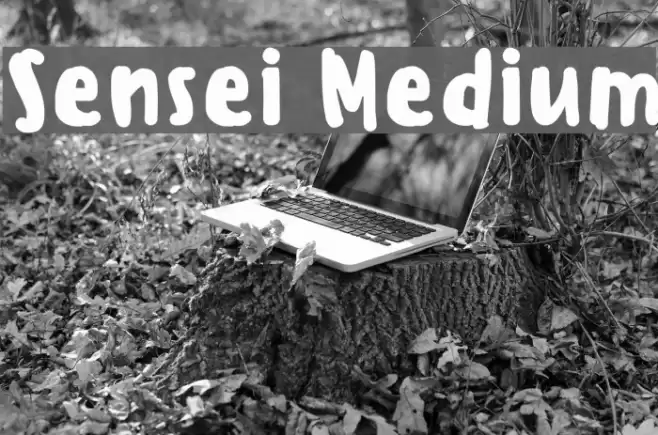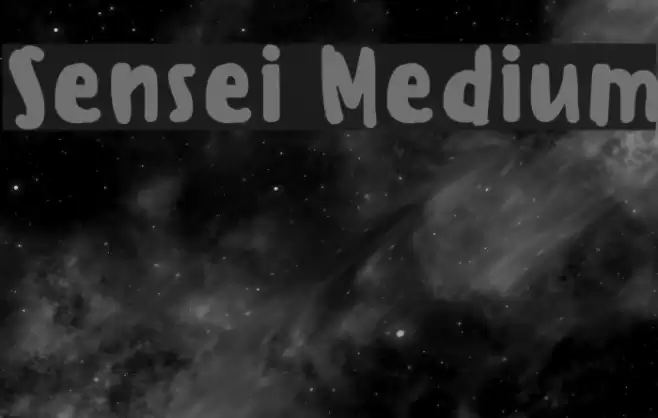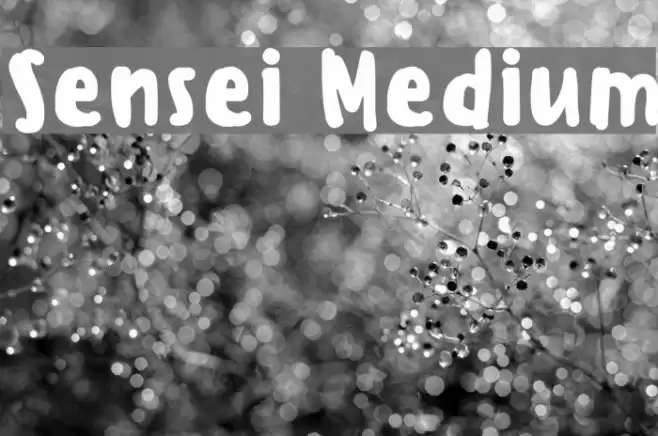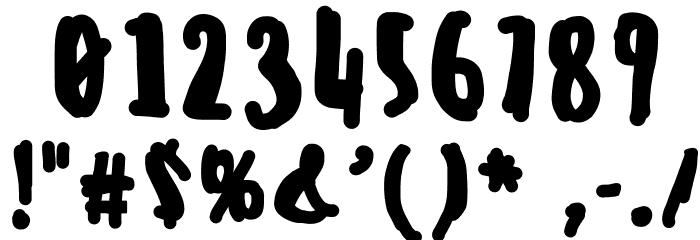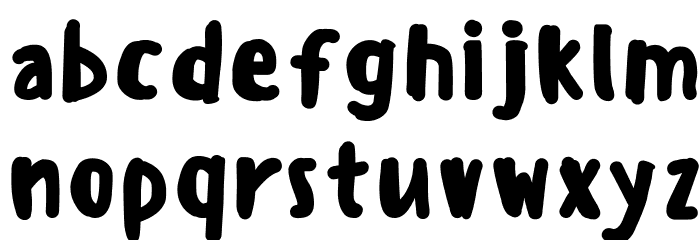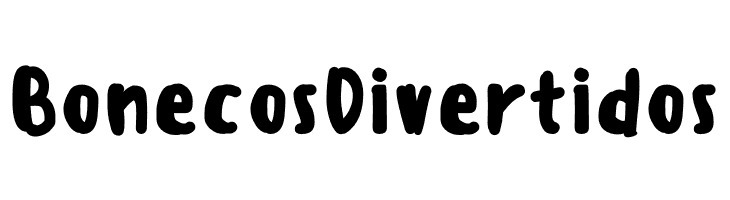
Sensei Medium Font
Sensei Medium Description
This font features a bold, playful style with a hand-drawn appearance. The characters are rounded and slightly irregular, giving them a casual and friendly feel. The uppercase and lowercase letters maintain a consistent weight, contributing to a cohesive look. Numbers and special characters follow the same design principles, ensuring uniformity across all glyphs. The font's thick strokes and rounded edges make it highly legible, even at smaller sizes. Its informal style is suitable for projects that require a personal touch, such as children's books, greeting cards, or playful branding.
A bold, playful, hand-drawn font with rounded, irregular characters from Uncategorized fonts.
- Proposed Projects: Ideal for children's books, greeting cards, playful branding, and casual invitations.
- Overall Style: Playful, Casual
- Use Case: Headlines, Logos, Informal Text